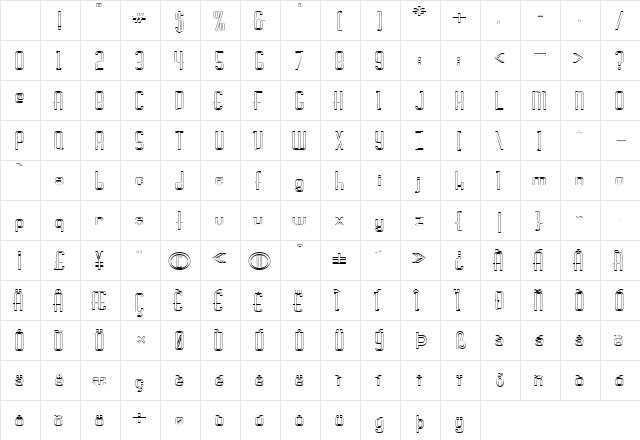
Complete Devon-Hollow-Extended Normal glyph index. Displaying only characters natively supported by Devon-Hollow-Extended Normal font.
Devon-Hollow-Extended is a composed and adaptable typeface that performs quietly and consistently across a wide range of design contexts.